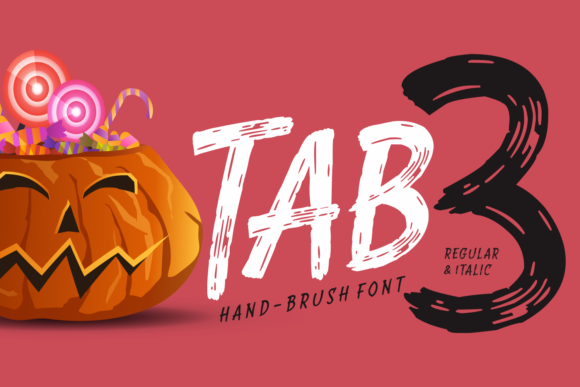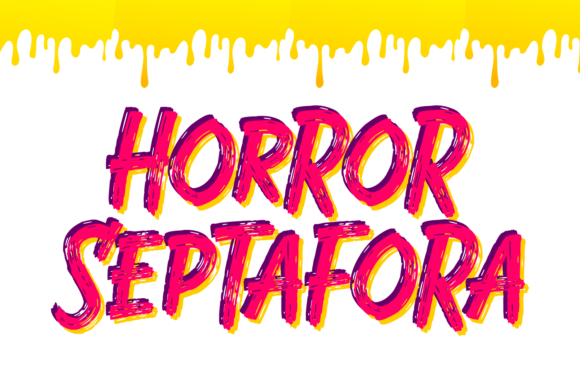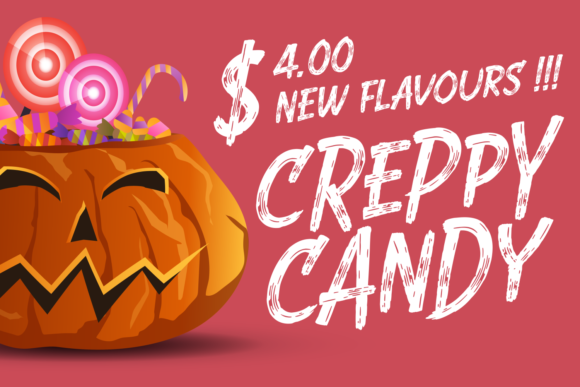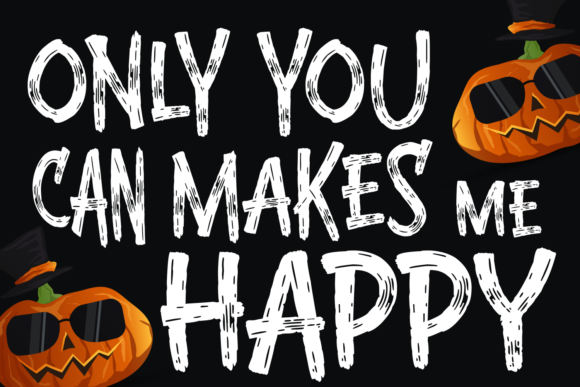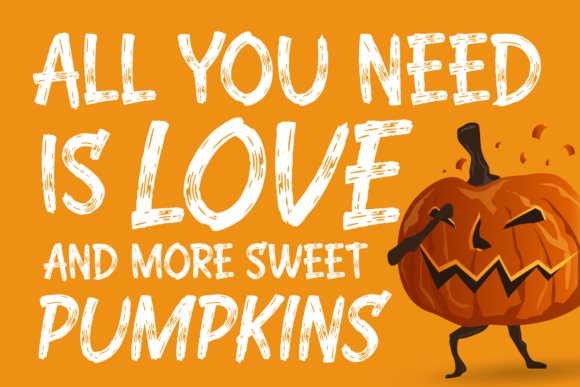
HomeScript FontsTab 3 Font Script Fonts Tab 3 Font FacebookXPinterestWhatsApp Tab 3 Font Poster 2 Tab 3 Font Poster 3 Tab 3 Font Poster 4 Tab 3 Font Poster 5 About Tab 3 Font Tab 3 is a fun handbrushed font with incredible lettering. Get inspired by its raw energy. DOWNLOAD ON CREATIVE FABRICAThis font is sold and delivered by Creative Fabrica. Font Canyon may earn a commission if you buy through this link. People also explored Barridy Ayella Font Agalenn Font Honnitta Industria Serif Bellavia Font Slacker Tabinda Font Hello Master Trio Font 321 0 TagsTab 3 Font Previous articleTab 2 FontNext articleRail Brush Font LEAVE A REPLY Cancel reply Comment: Please enter your comment! Name:* Please enter your name here Email:* You have entered an incorrect email address! Please enter your email address here Website: Save my name, email, and website in this browser for the next time I comment. Personal Use Free Saolice Personal Use Free Read more about this font Wanita Cantik Personal Use Free Read more about this font Sarwendah Personal Use Free Read more about this font Winter Soldier Personal Use Free Read more about this font BLOG Fonts That Capture the Spirit of New York City New York City is more than just a place—it’s an experience, a rhythm, a visual language... Using Fonts in Digital Marketing: Tips to Strengthen Your Brand Identity Top 10 Handwritten Fonts That Elevate Your Designs Free vs Paid Fonts: Why Investing in Premium Fonts Is Worth It